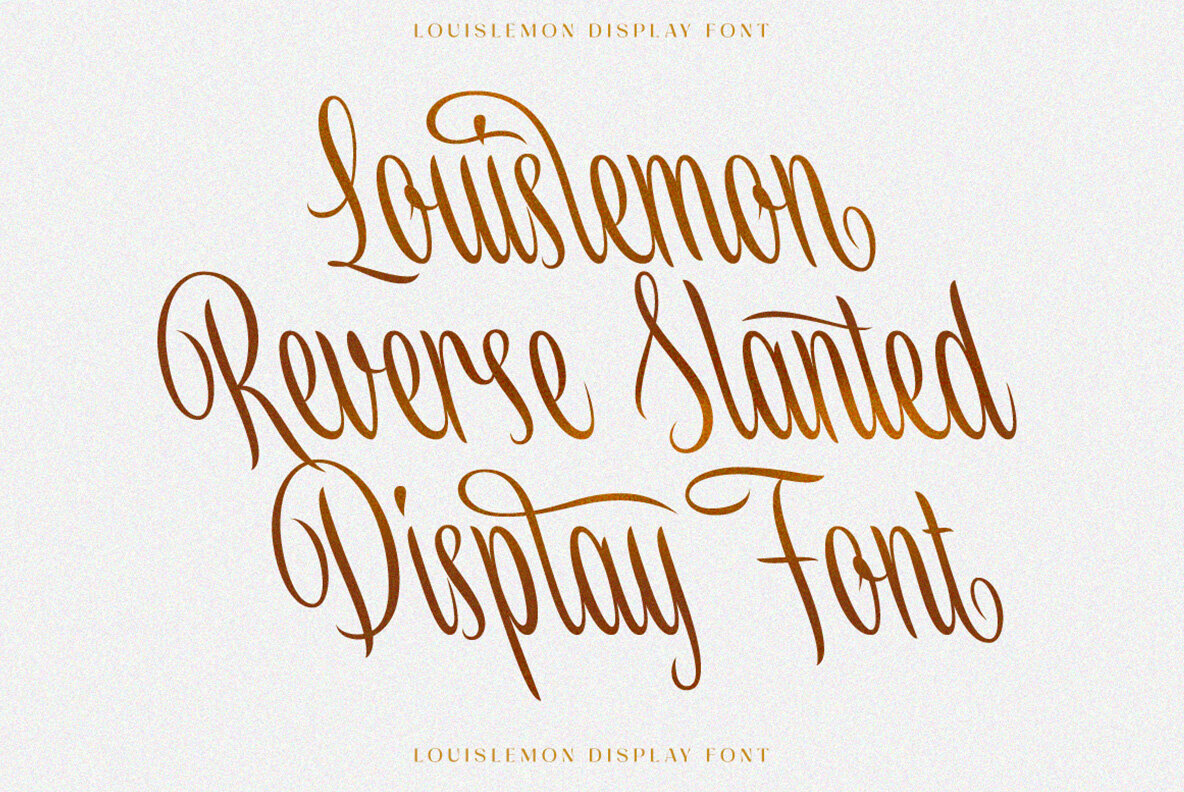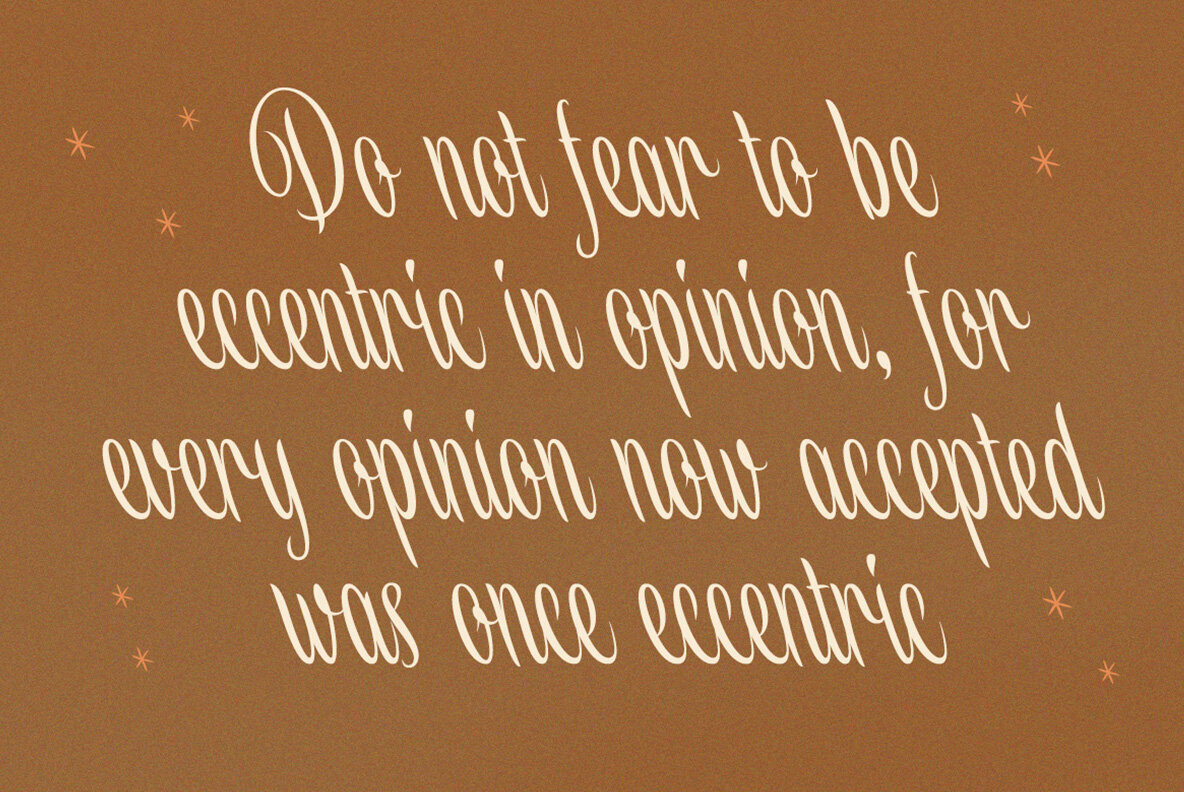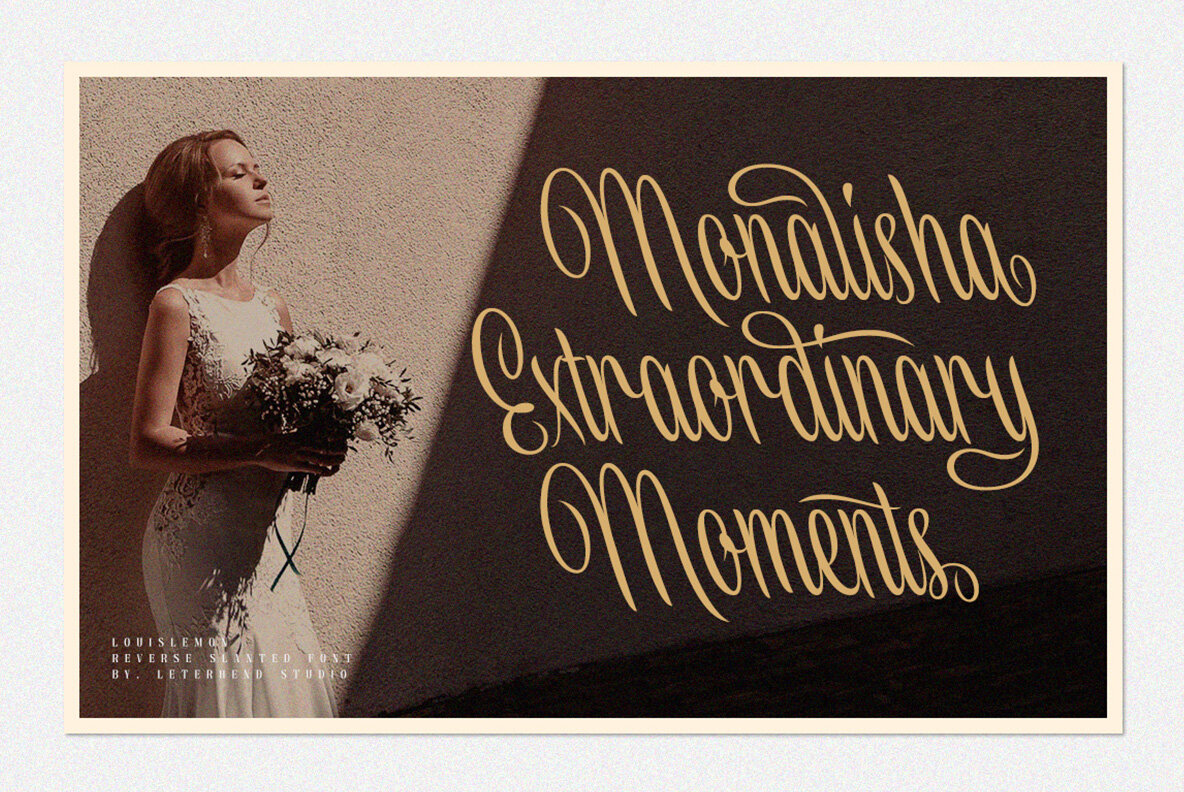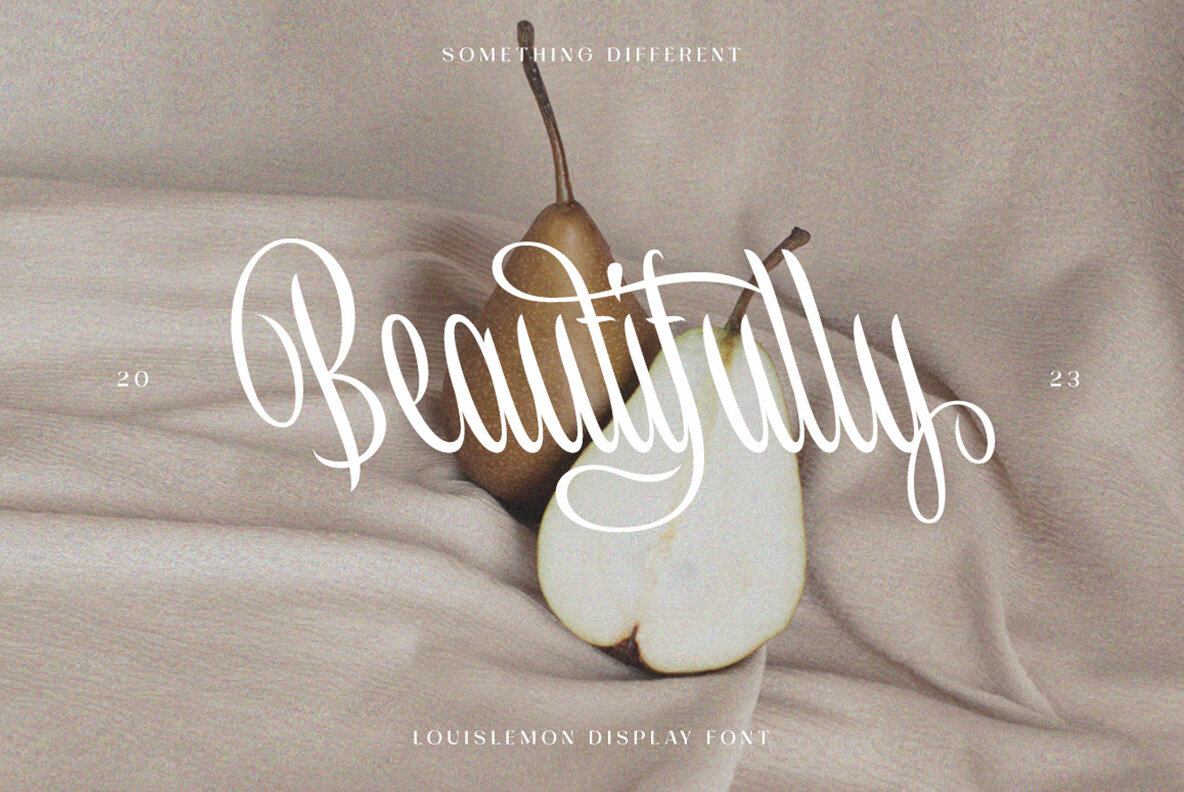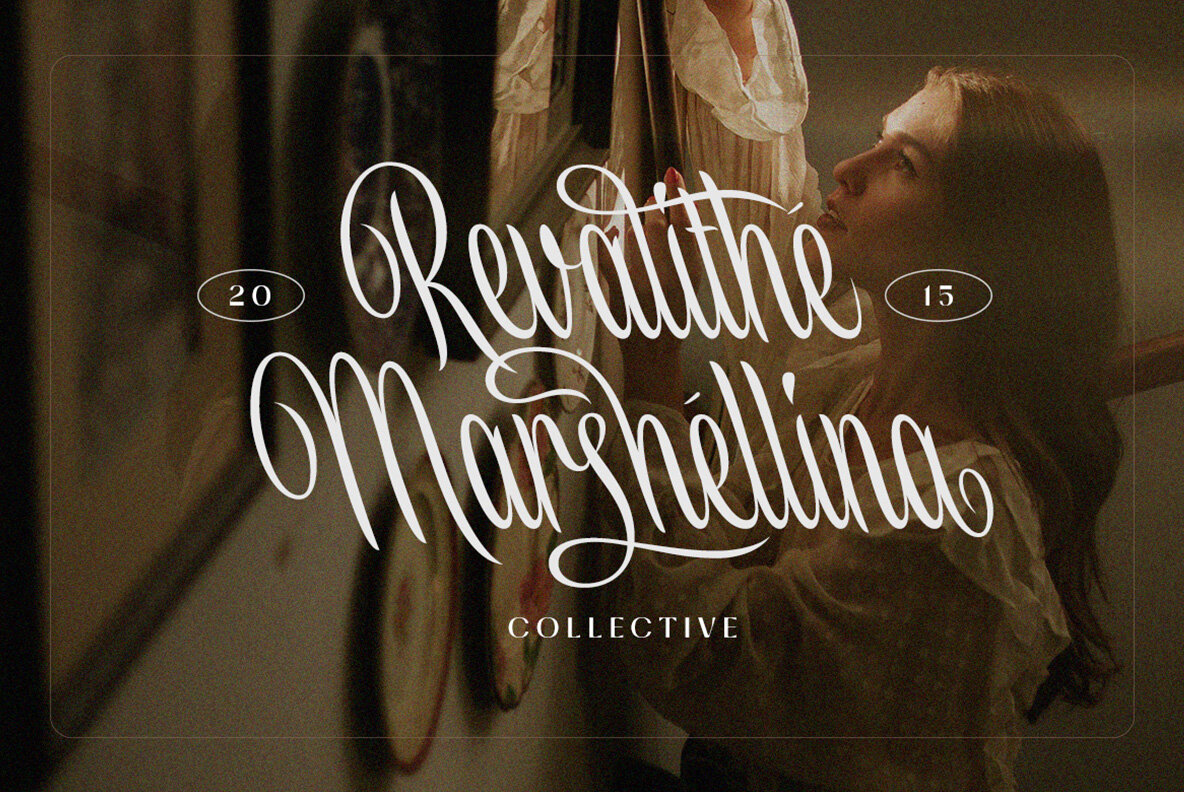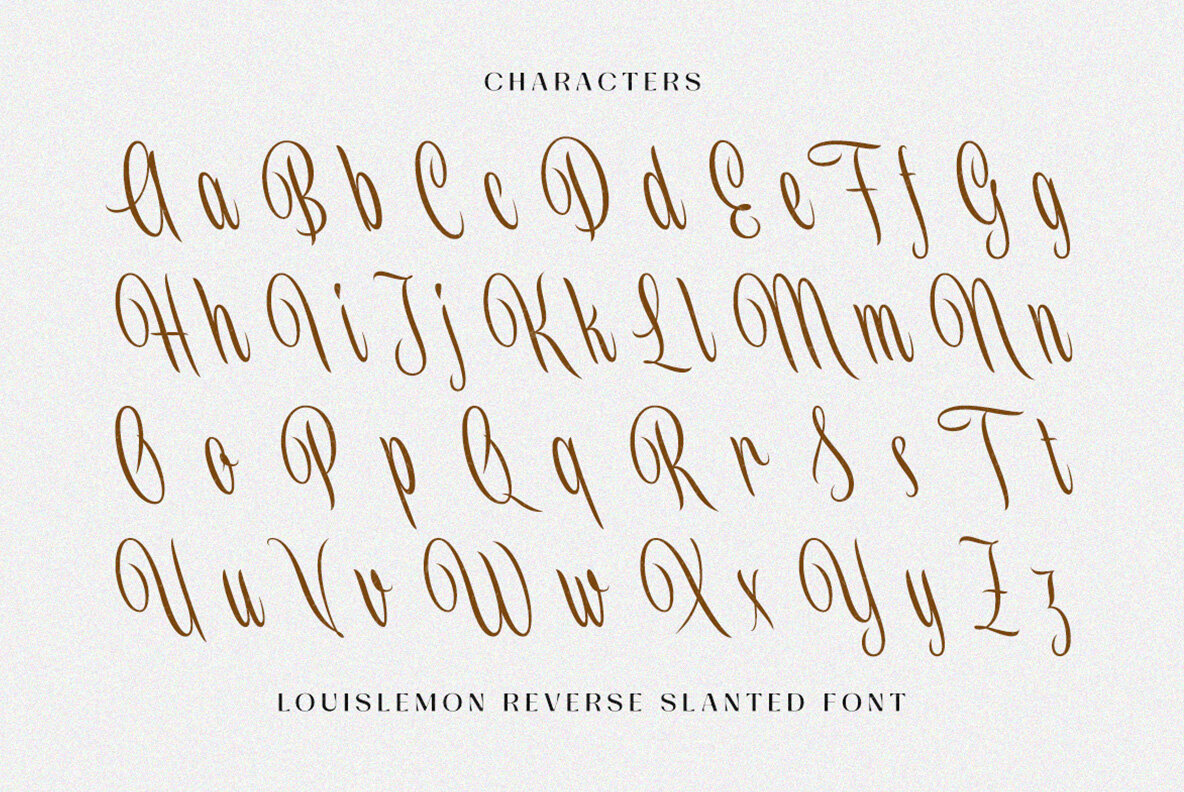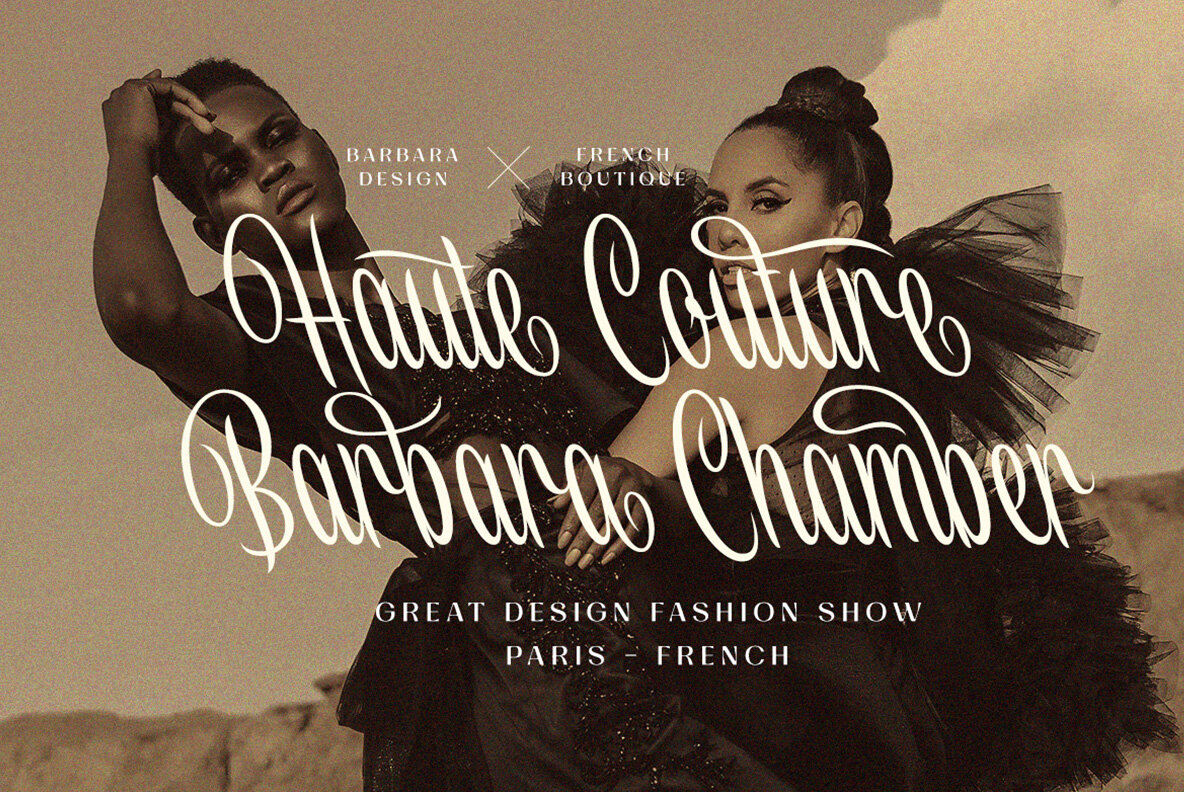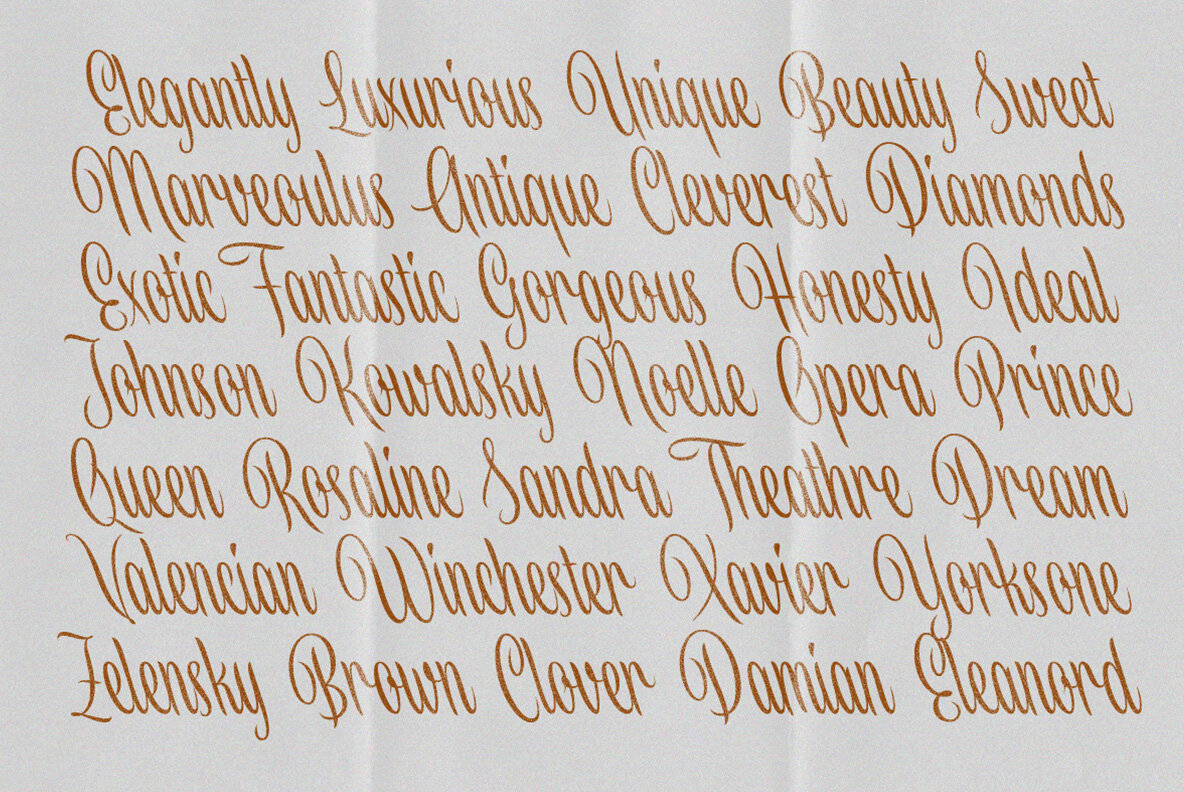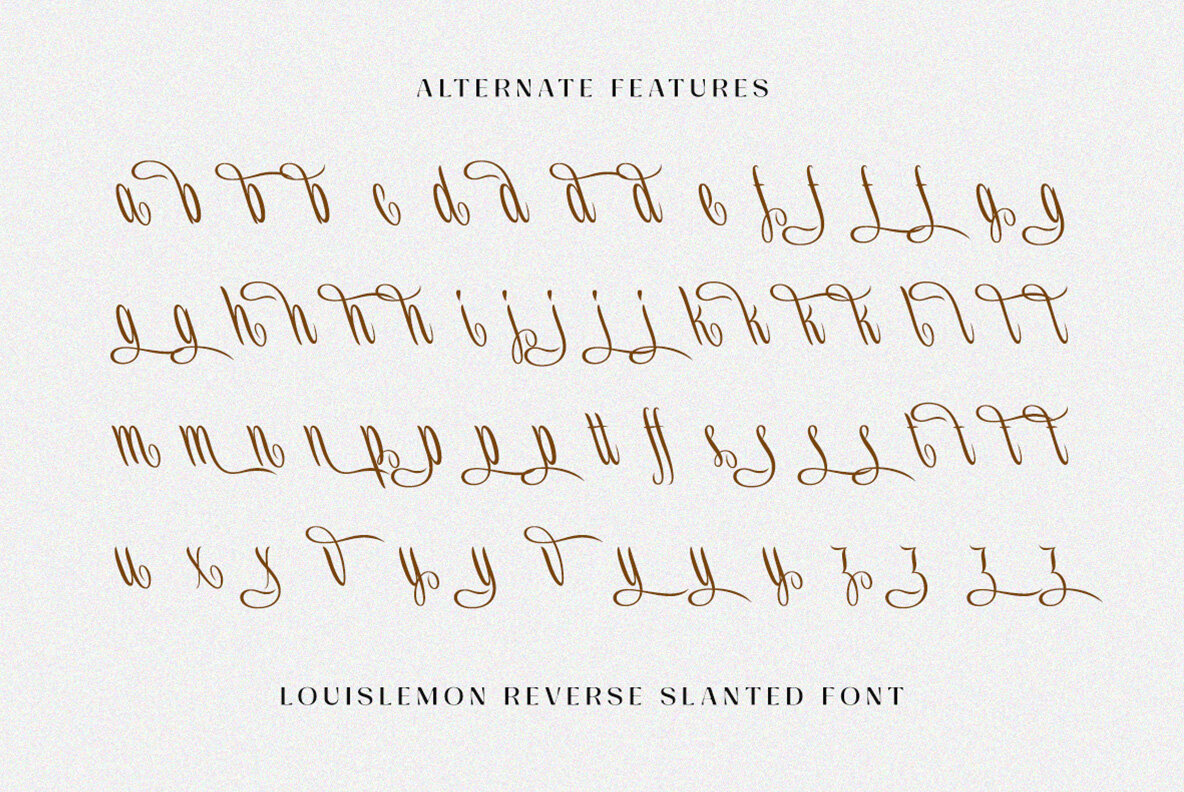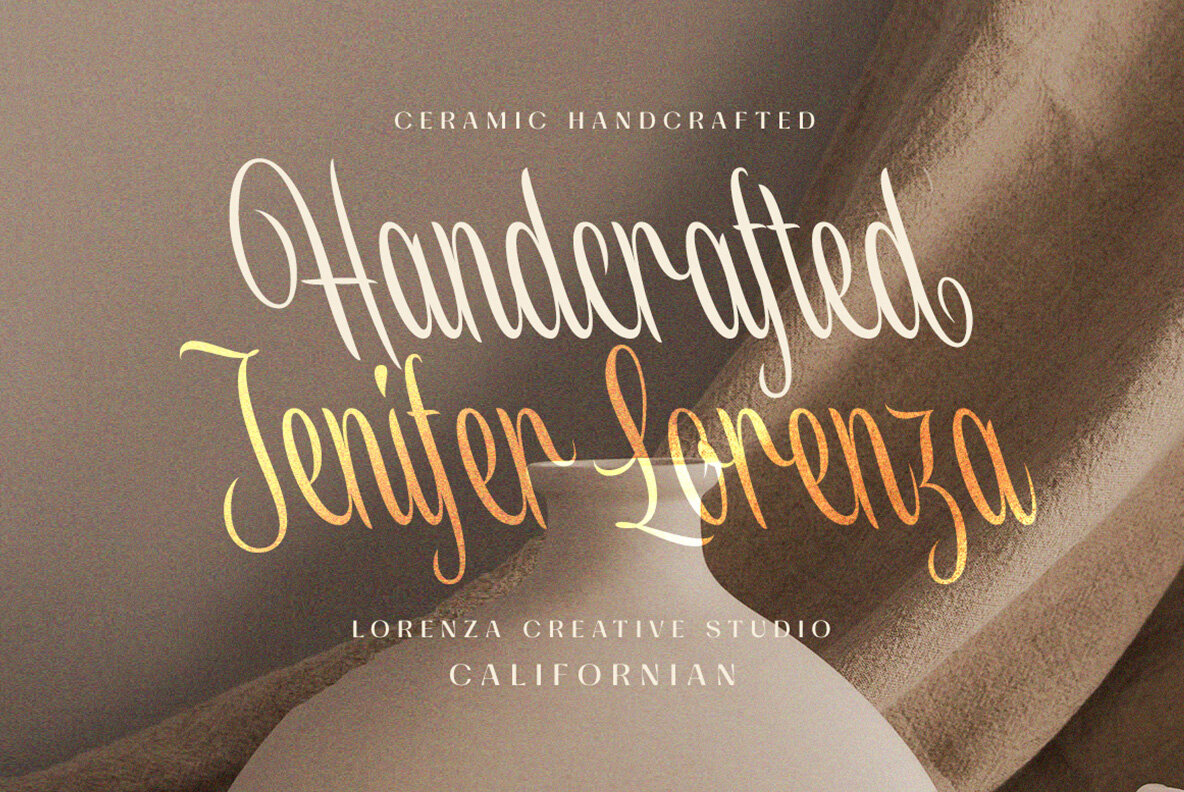
Louislemon Font
Louislemon Regular
Louislemon Display offers a unique flair with its reverse slant script style, setting it apart in typography. This typeface is particularly well-suited for logos, offering an unexpected twist that captures attention in both formal and creative contexts. The versatility of Louislemon also makes it an excellent choice for invitations, labels, and a broad array of design projects such as magazines, greeting cards, packaging, and advertising materials.Louislemon Display: Distinctive Script with Reverse Slant